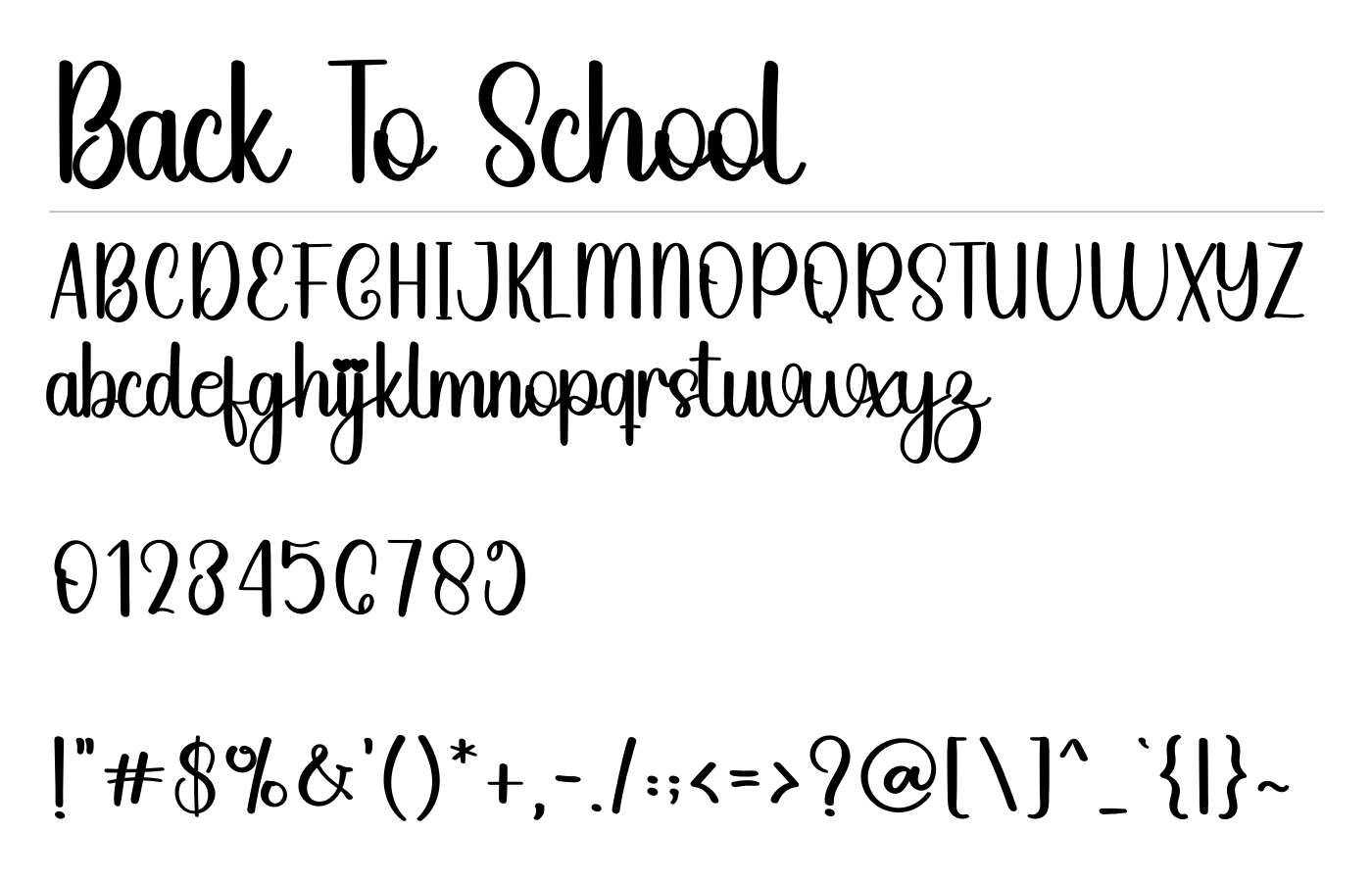
Back To School is a playful, hand-drawn script font with a friendly and informal vibe, featuring a mix of tall, narrow letterforms and rounded, whimsical strokes. Its casual style and moderate contrast make it perfect for designs that want to evoke warmth, creativity, and a youthful spirit, ideal for children's products, educational materials, or fun branding projects. This font works best in headlines, logos, or packaging where a personal and approachable touch is desired.
Back To School Font
About Back To School Font
| Font family | Back To School Font |